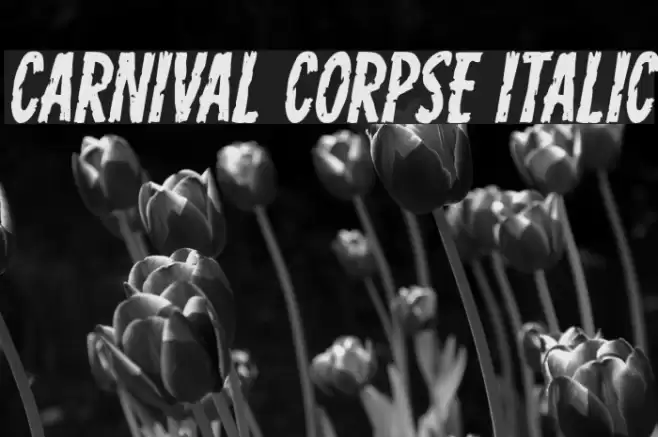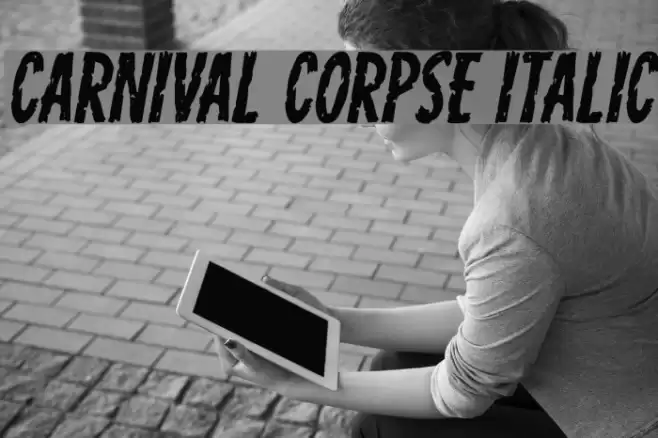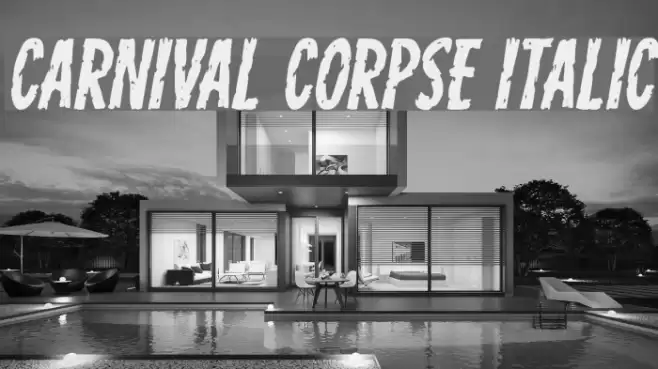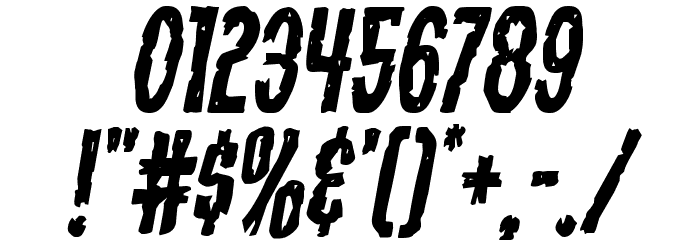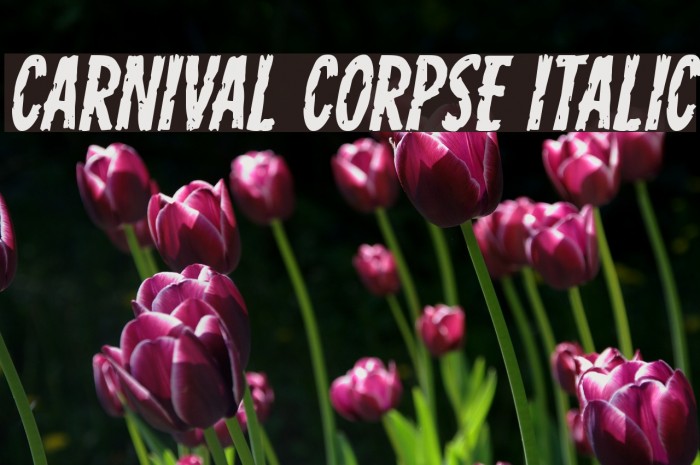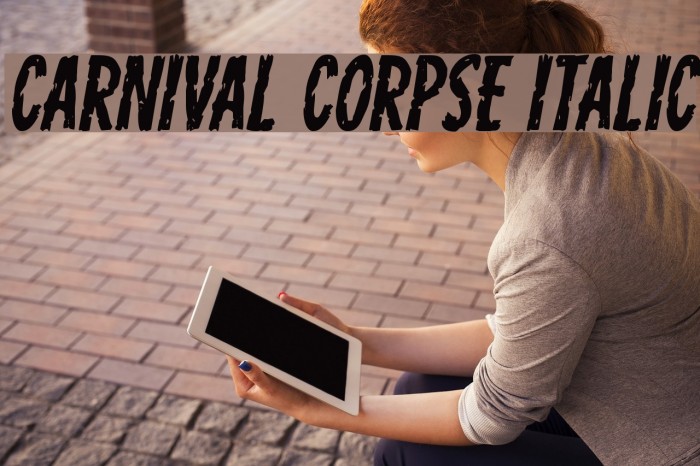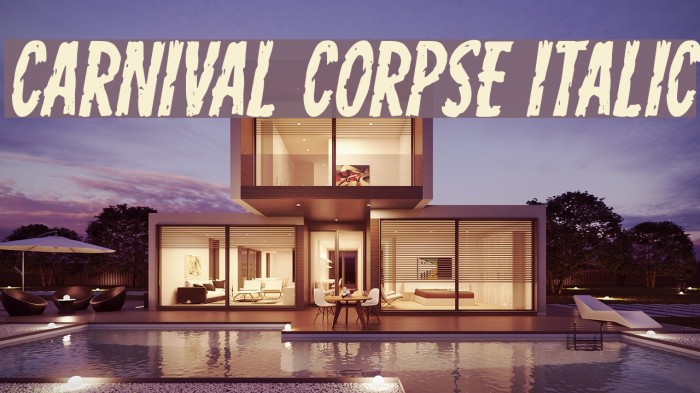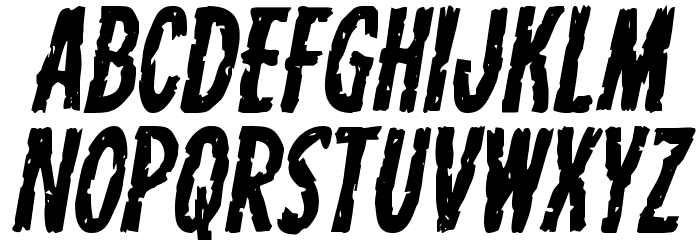
Carnival Corpse Italic Font
Carnival Corpse Italic Description
This font features a bold and distressed style with an italic slant, giving it a dynamic and edgy appearance. The characters are heavily textured, resembling brush strokes or worn-out paint, which adds a rugged and rebellious feel. The uppercase and lowercase letters maintain a consistent style, with exaggerated serifs and uneven edges that contribute to its chaotic aesthetic. Numbers and special characters follow the same design principles, ensuring uniformity across the font. This typeface is ideal for projects that require a dramatic and impactful visual statement.
A bold, distressed, and italic font with a rugged, brush-stroke appearance from Horror fonts.
- Proposed Projects: Ideal for music album covers, horror movie posters, edgy branding, and event flyers.